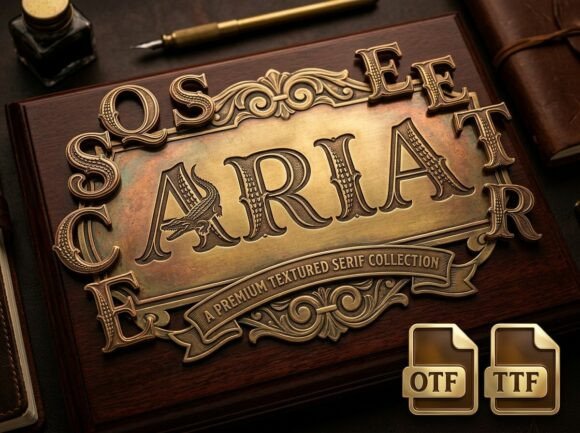
The Ultimate Display Font: Unlocking the Power of Aria Font
A First Impression: What Makes Aria Font Special
Aria Font is a stunning decorative display font designed to be the center of attention. With its unique artistic elements and strong visual personality, it’s perfect for creators who want to break away from the ordinary. This font is versatile enough for bold headlines, artistic logos, and creative packaging, while maintaining a professional and polished finish.
Honest Review: The Good and the Quirks
- ✨ Unique and artistic design that’s sure to turn heads.
- ✅ Professional and polished finish, perfect for high-end designs.
- 💡 Versatile and adaptable for various design projects.
⚠️ Keep in mind that Aria Font is an all-caps font, so it’s essential to plan your design accordingly. While this may seem limiting, it’s actually a deliberate design choice that allows for maximum impact and emphasis on each letter.
🤔 Some users may find that the font’s uniqueness can make it challenging to read in smaller sizes or at a distance.
As an OpenType font, Aria Font offers advanced typographic features that can enhance your designs. Experiment with:
- Stylistic alternates: Swap out letters for alternative designs.
- Glyphs: Access special characters and ornaments to add visual interest.
The Story Behind Aria Font
Aria Font was inspired by the world of art and music. Its creator, a passionate designer and artist, sought to craft a font that would evoke the same emotions and energy as a stunning piece of art. The result is a font that’s both visually striking and emotionally resonant.
Q: Is Aria Font suitable for body text?
A: No, Aria Font is designed specifically for display purposes and is not recommended for body text.